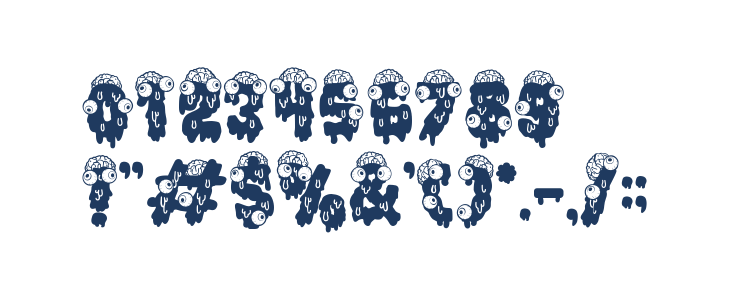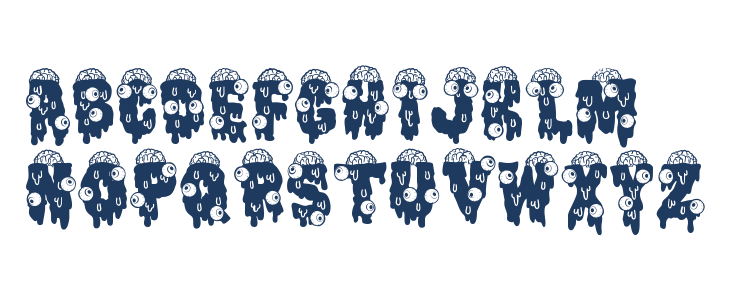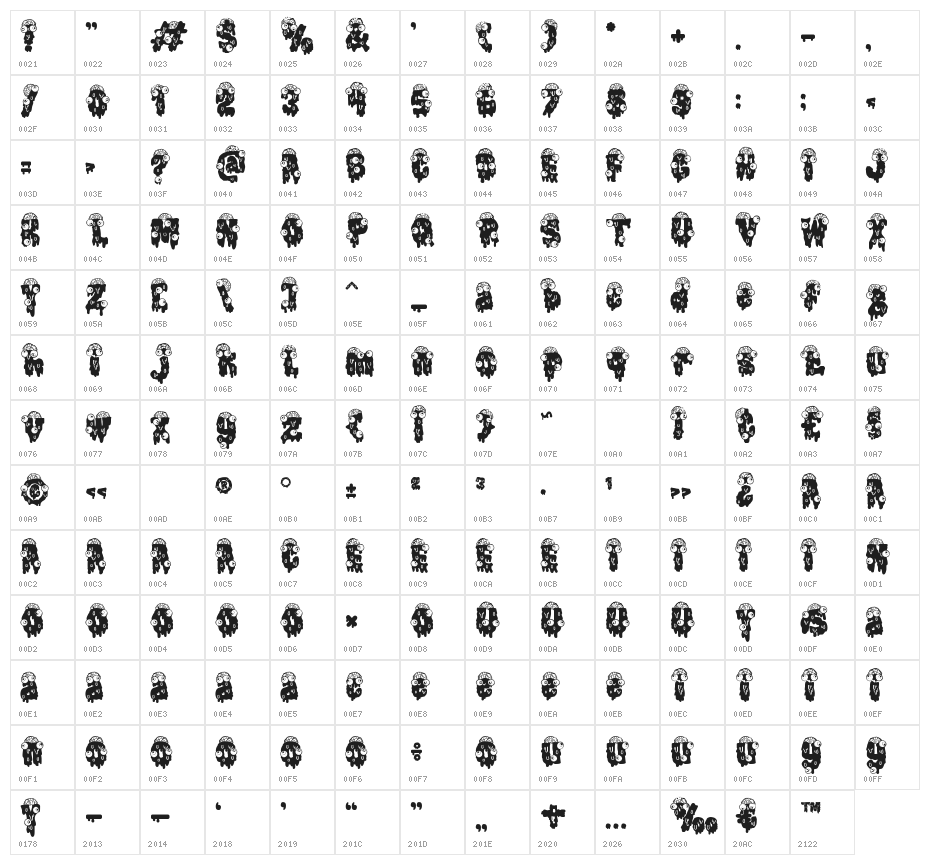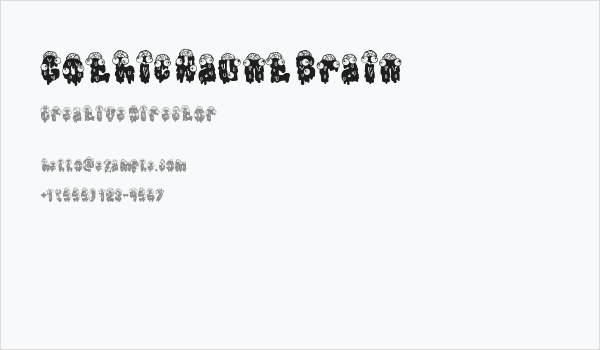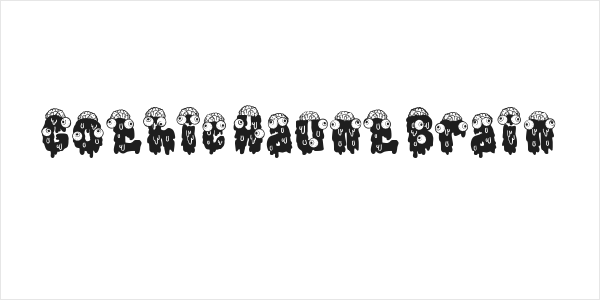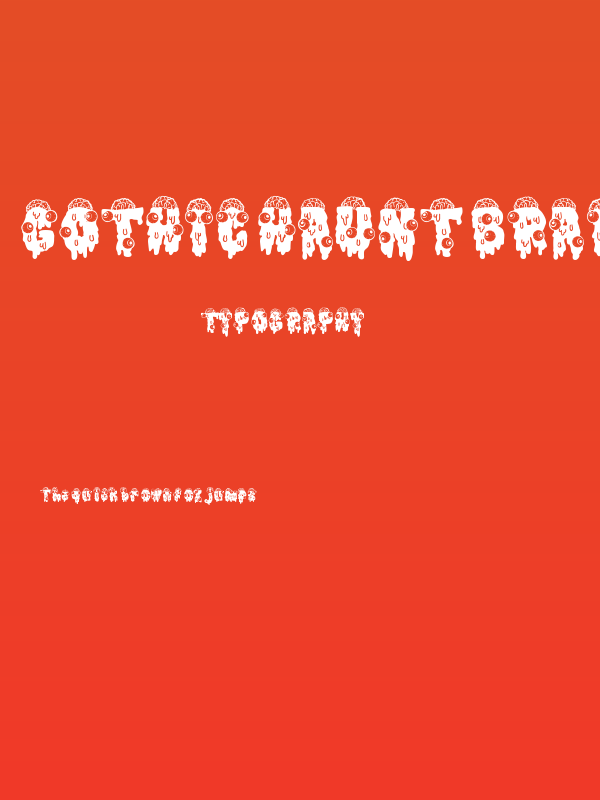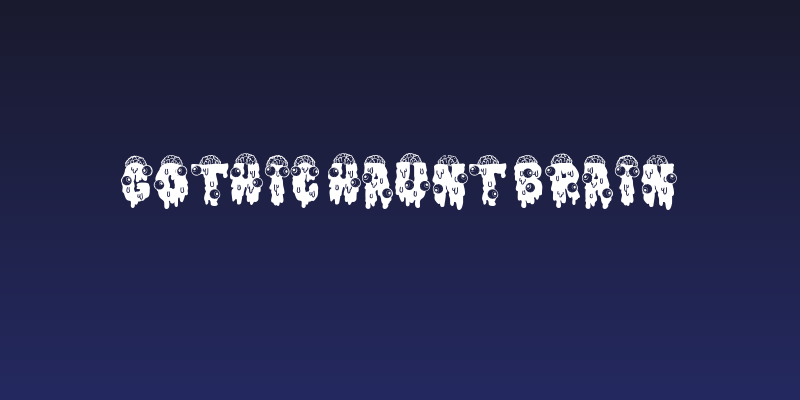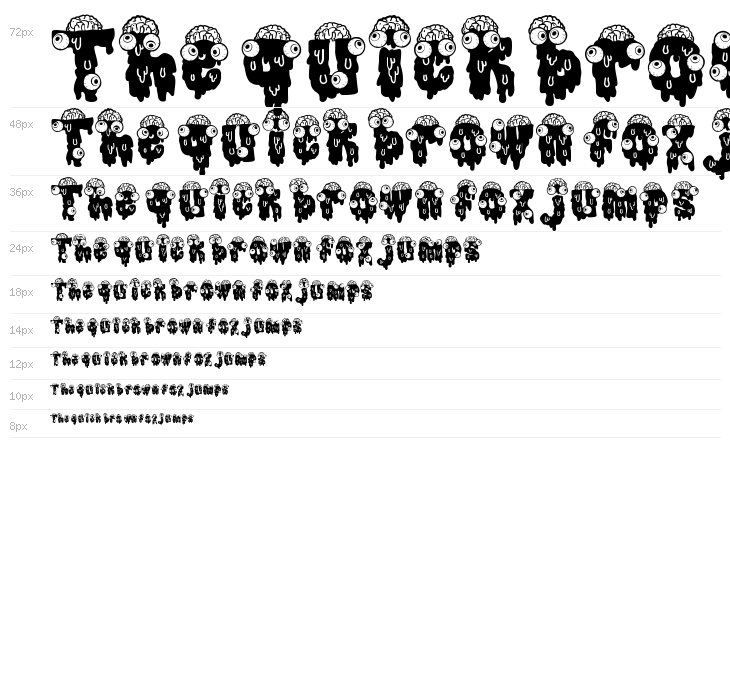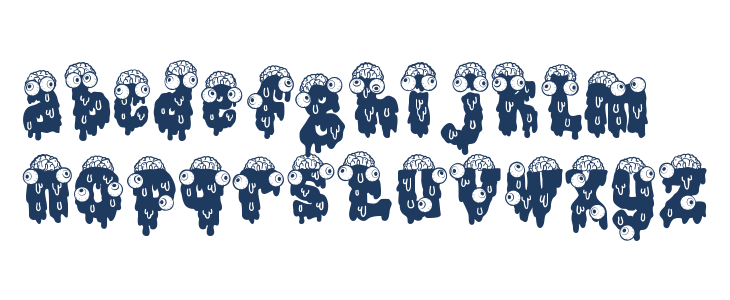
Gothic Haunt Brain Font
Gothic Haunt Brain Description
A highly decorative, horror-themed font featuring dripping, gooey letterforms with cartoonish brains and bulging eyes, evoking a playful zombie or monster aesthetic. The characters are bold, irregular, and visually striking, with exaggerated features and a hand-drawn quality.
| Overall Style | Decorative, Playful, Horror |
| Use Case | Headlines, Posters, Logos, Themed Graphics |
| Proposed Projects | Halloween posters, haunted house flyers, horror movie titles, themed party invitations, spooky merchandise, childrenΓ’β¬β’s Halloween books. |